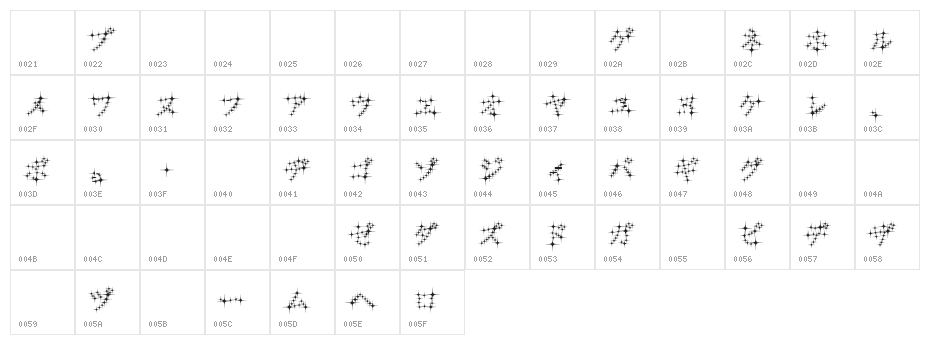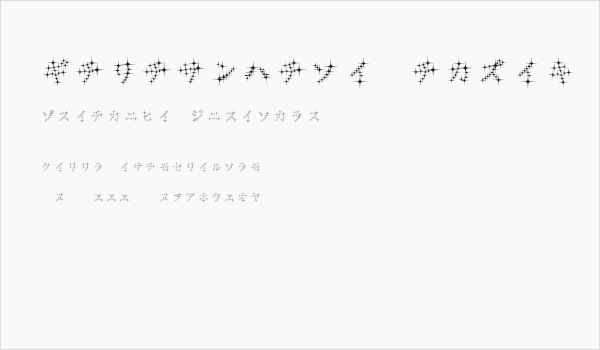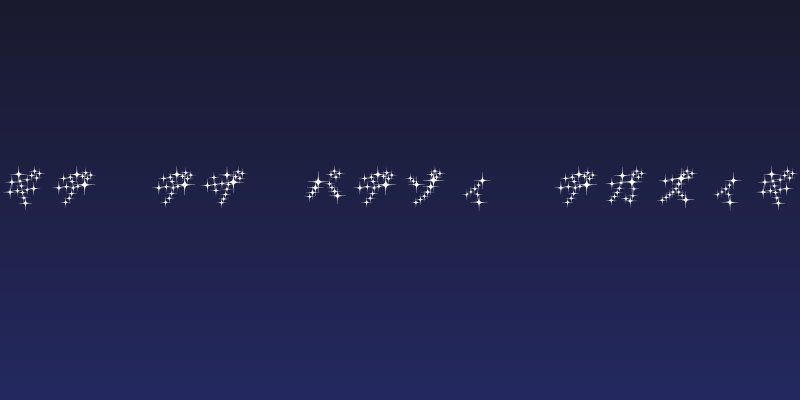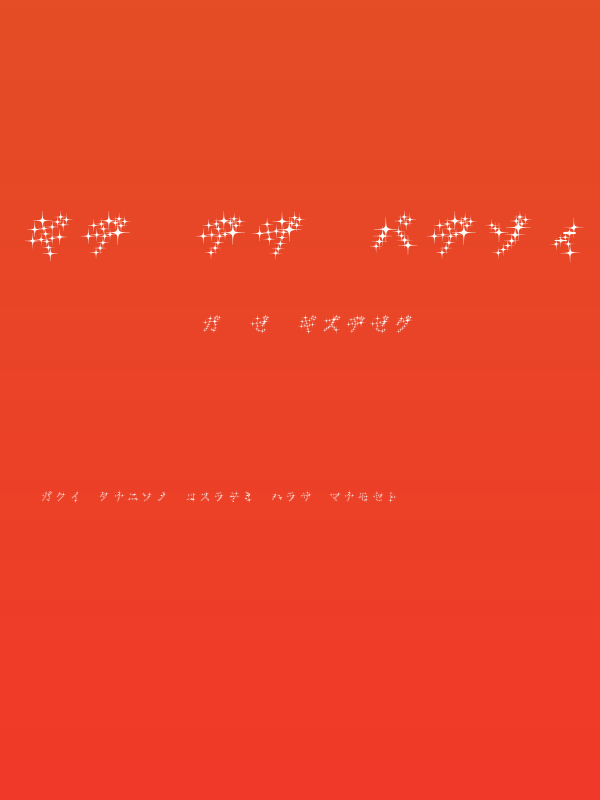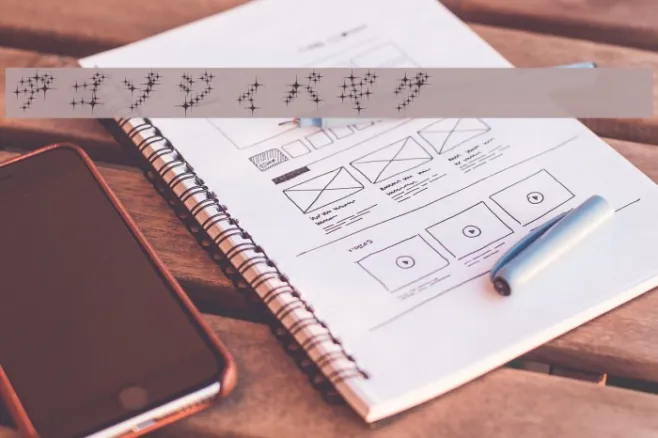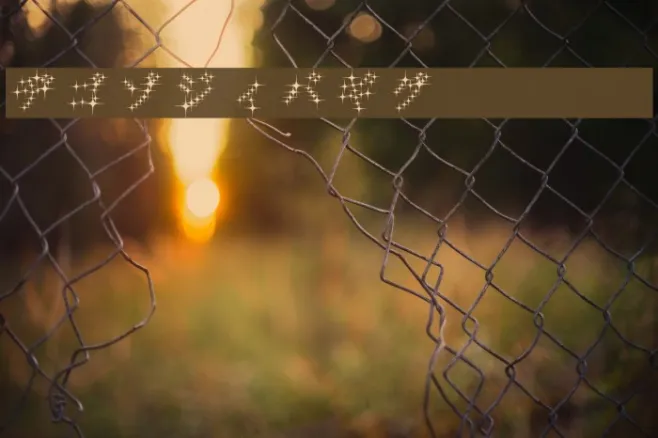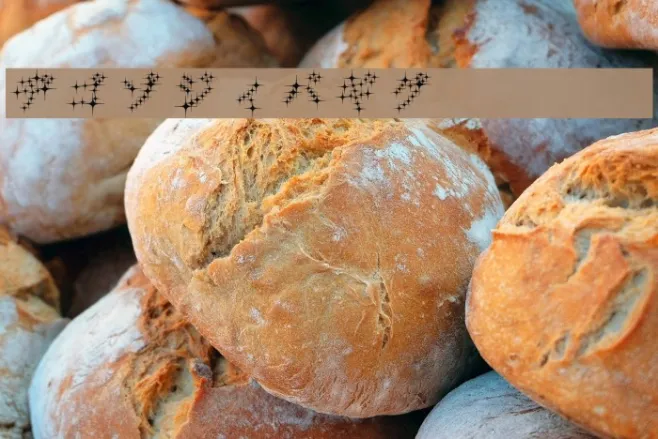
GalaxyfaceKatReg Font
GalaxyfaceKatReg Description
This font features a unique and whimsical design, characterized by its star-like embellishments that give each letter a celestial appearance. The characters are formed with a series of small, pointed shapes that resemble twinkling stars, creating a playful and decorative effect. The overall look is both modern and artistic, making it stand out as a display typeface. The font maintains a consistent style across uppercase, lowercase, numbers, and special characters, ensuring a cohesive visual experience. Its intricate design suggests a sense of wonder and creativity, perfect for projects that aim to capture attention and convey a sense of magic or fantasy.